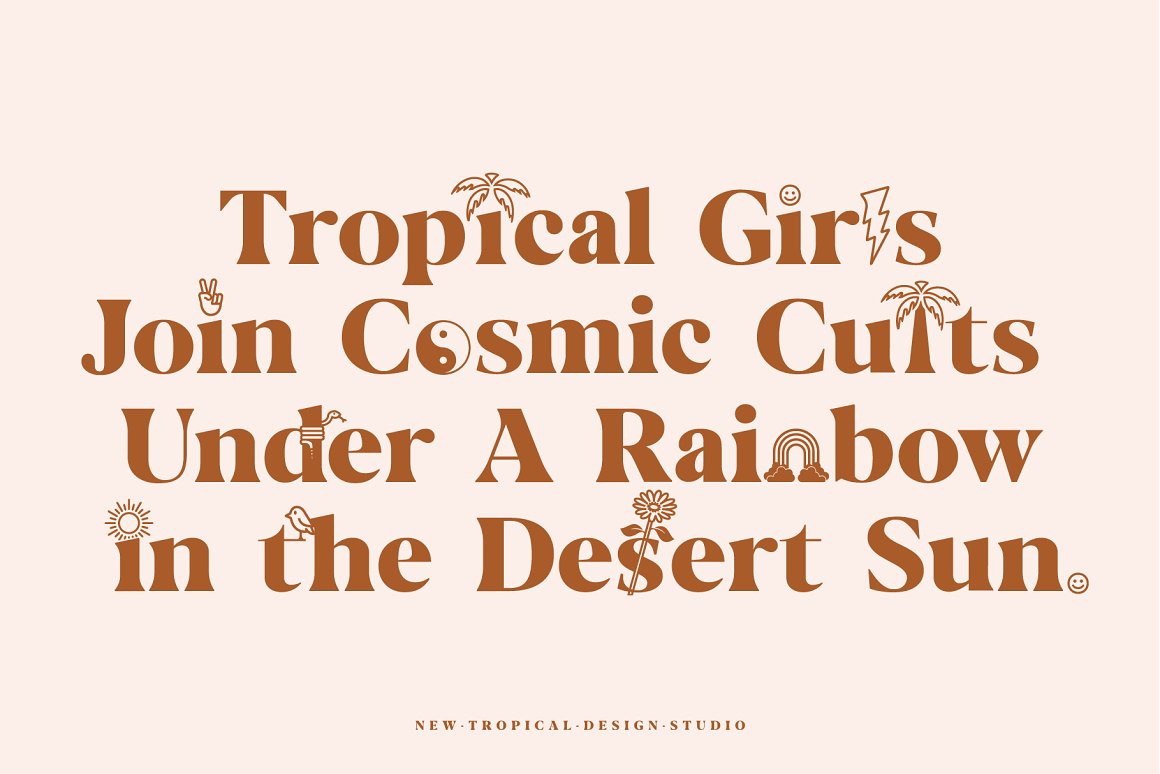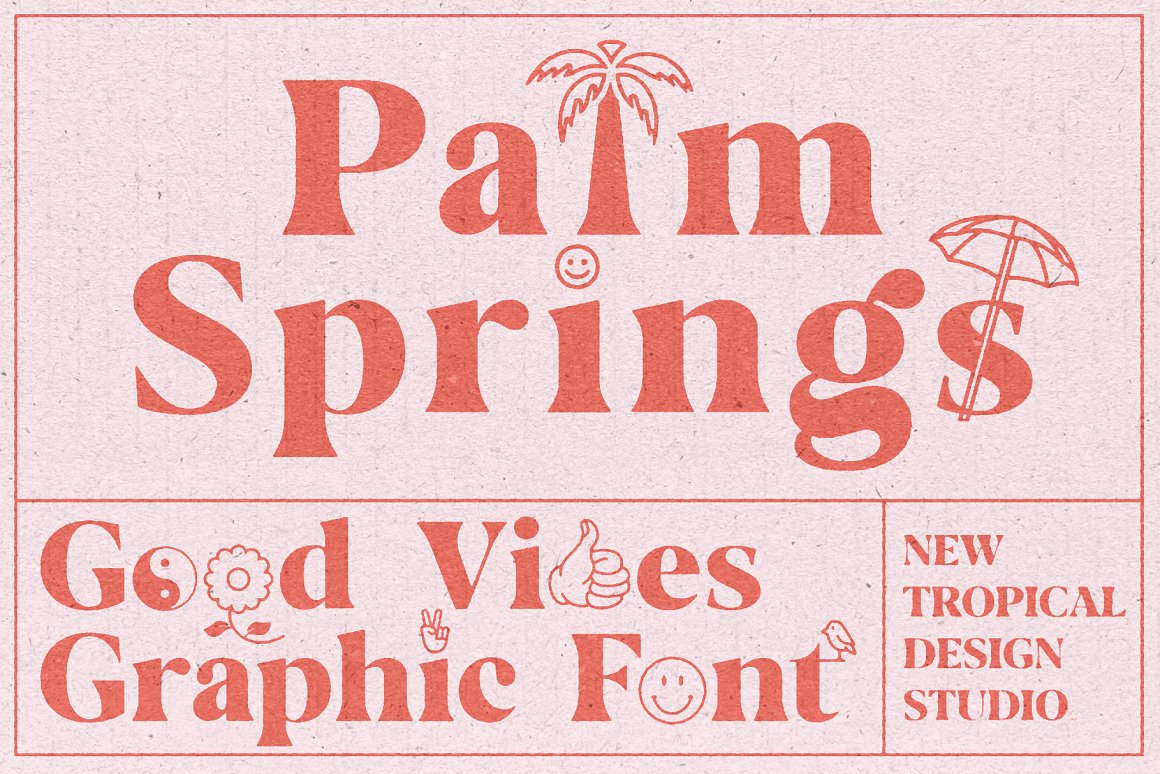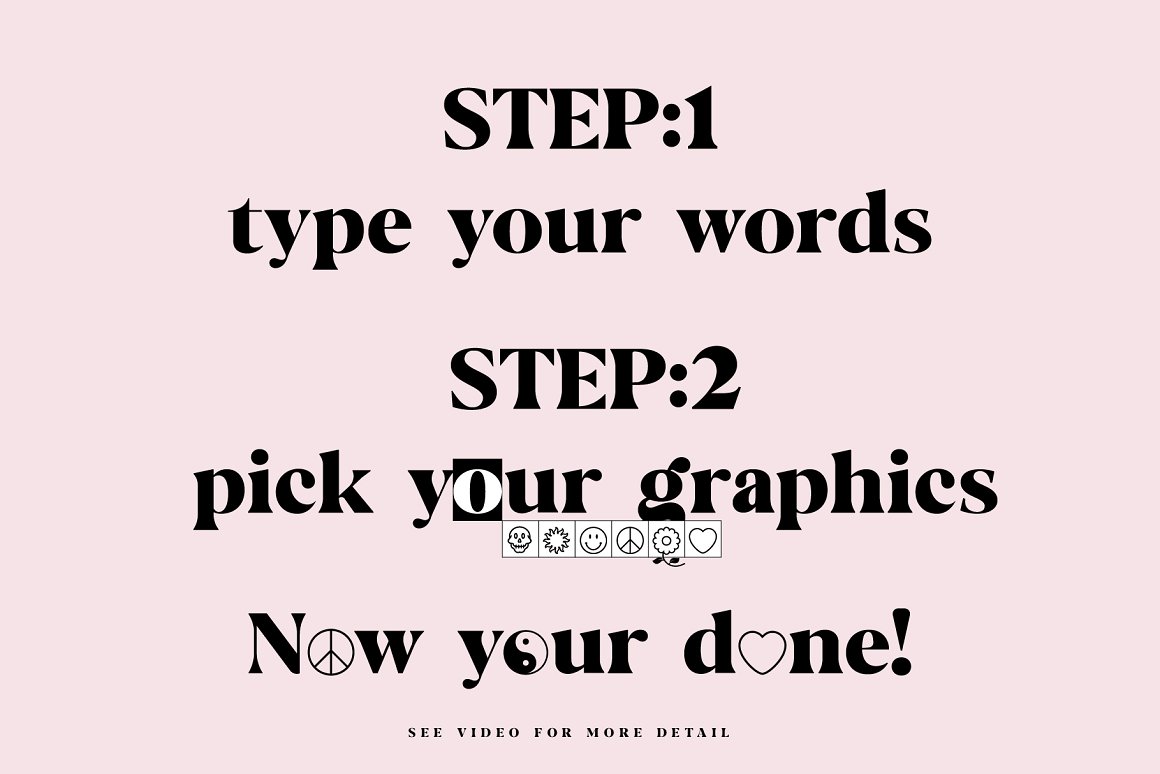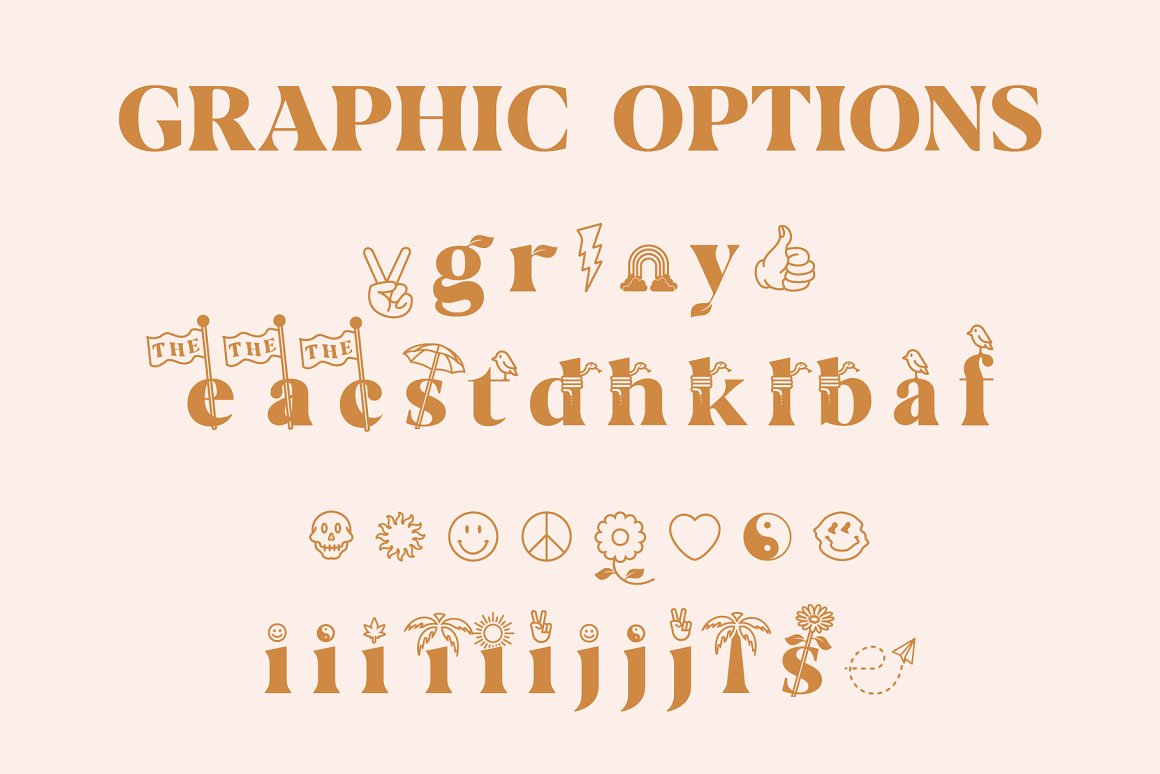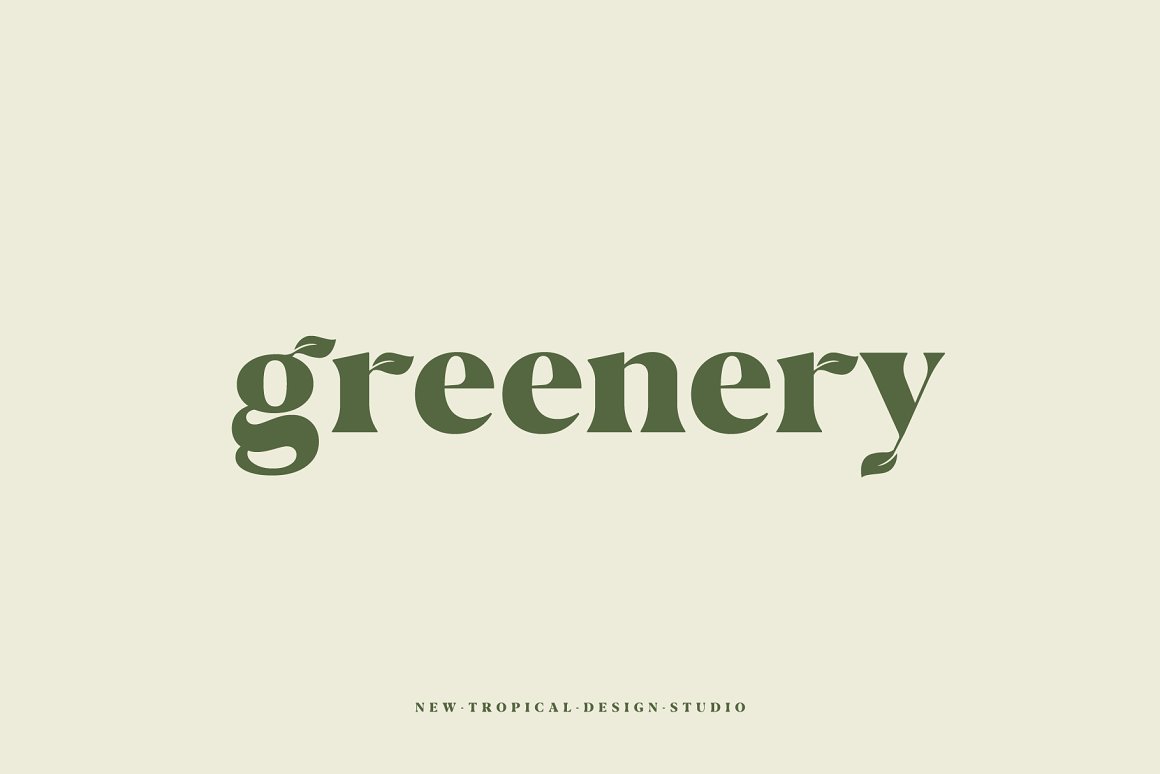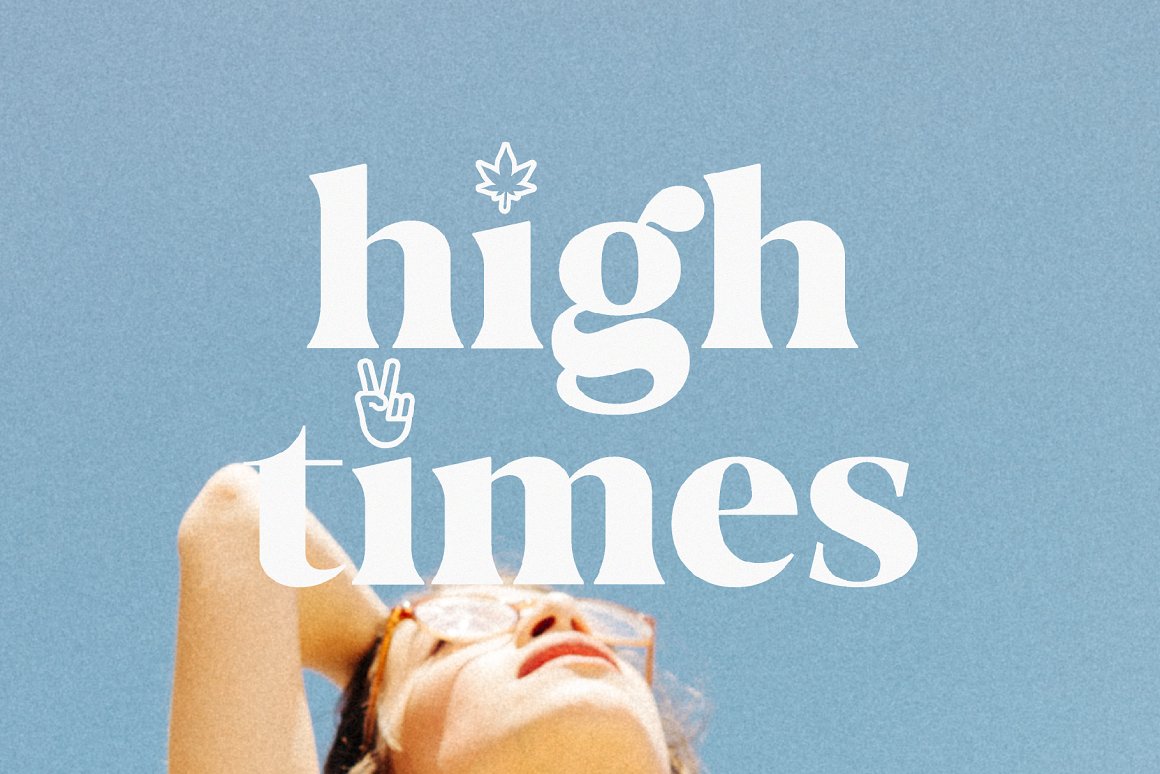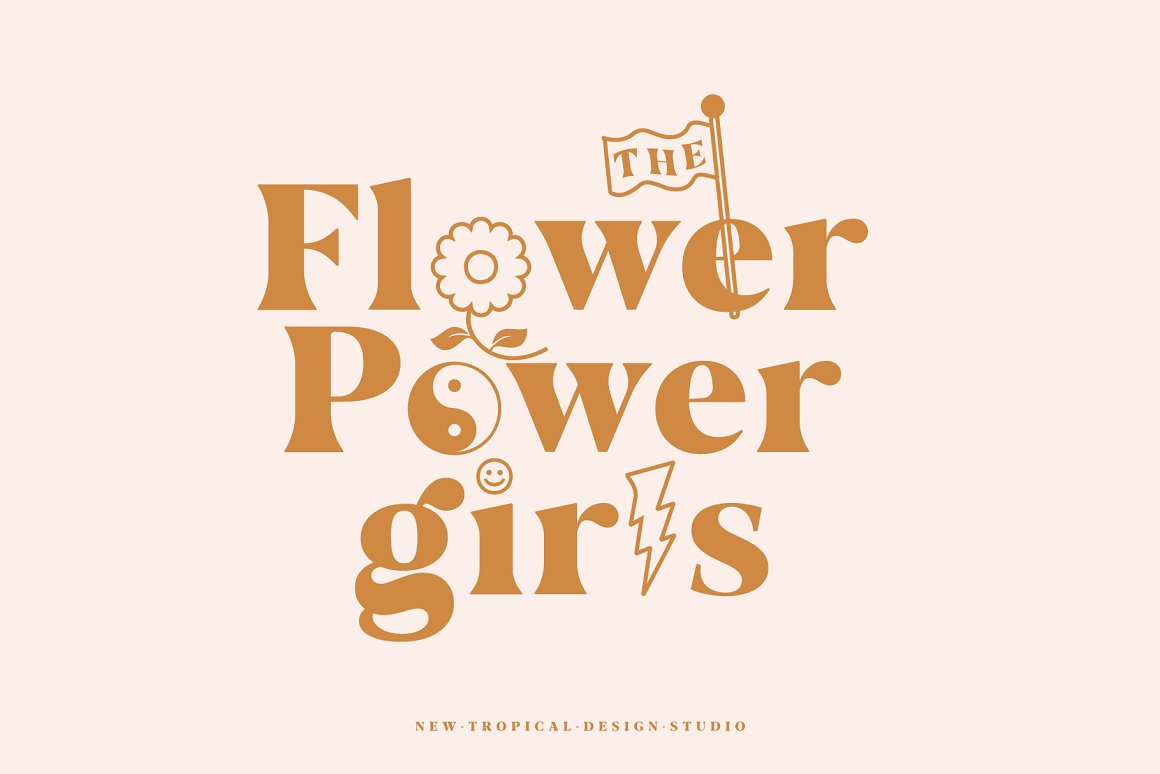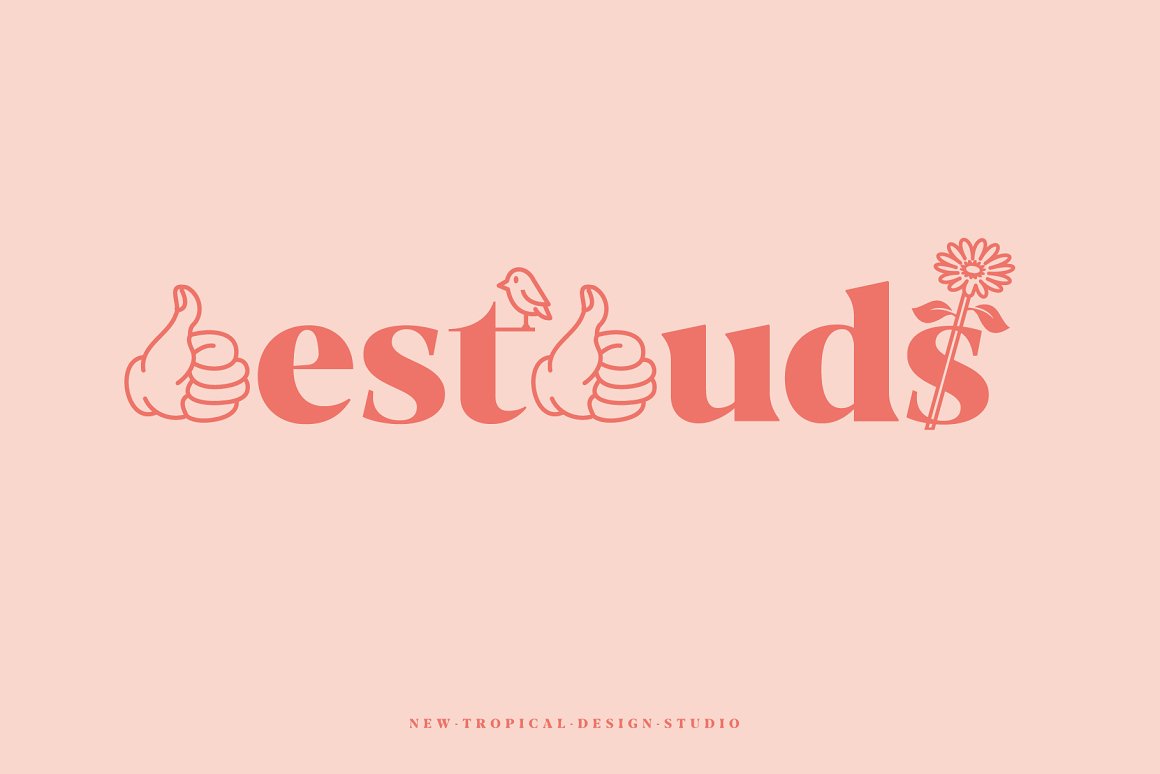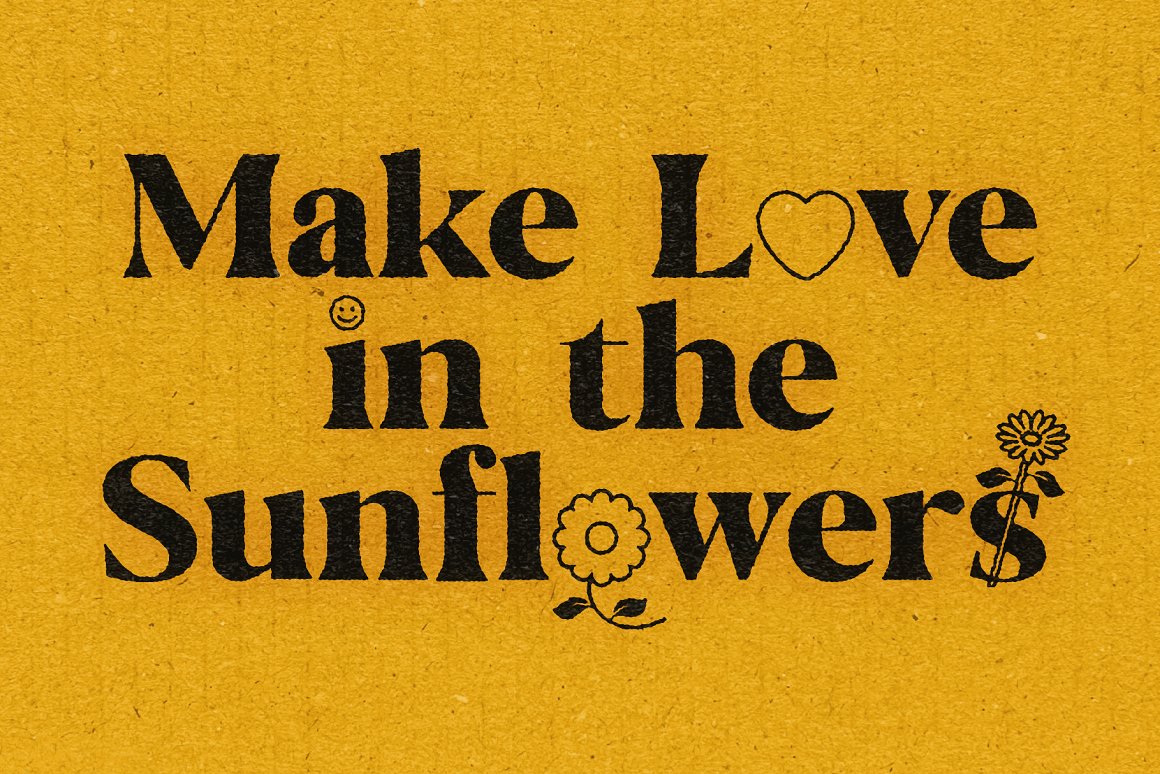
Palm Springs Graphic Font
Palm Springs Graphic Font is a one of kind typeface with built in graphics. Just type your text and add intertwined graphic letters with a single click. It's never been easier to get those good vibes and 70s styles.